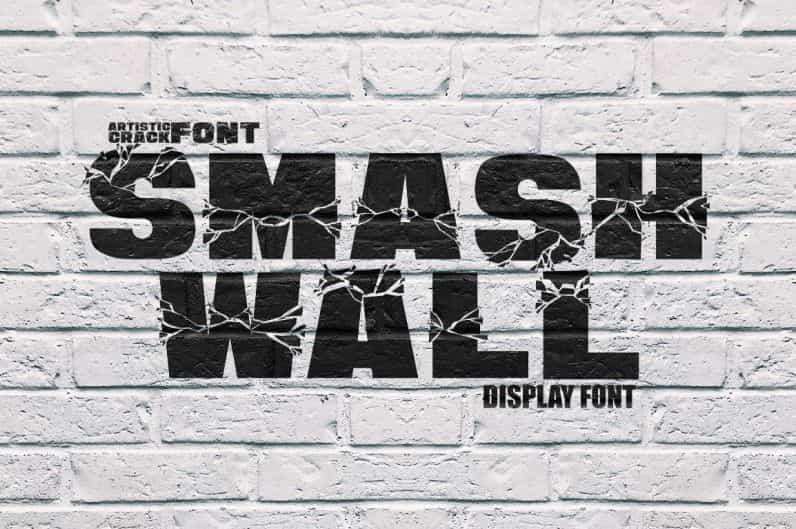
Smash Wall Display Font
SMASH WALL is display font that reflects a picture of a wall which has been smashed or hit, the character of this font is more or less thick or bold. The pieces are created as realistic as possible which shows their cut as if they had been hit. Each character has three fractional positions namely, above, middle and below.